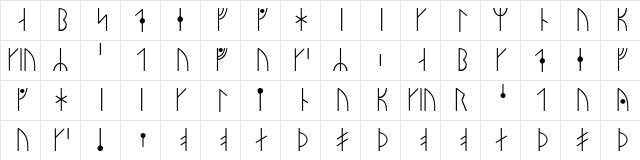
Short-Twig Runes Regular
Design Context for Short-Twig Runes Typeface
Short-Twig Runes is a composed and adaptable typeface that performs quietly and consistently across a wide range of design contexts.